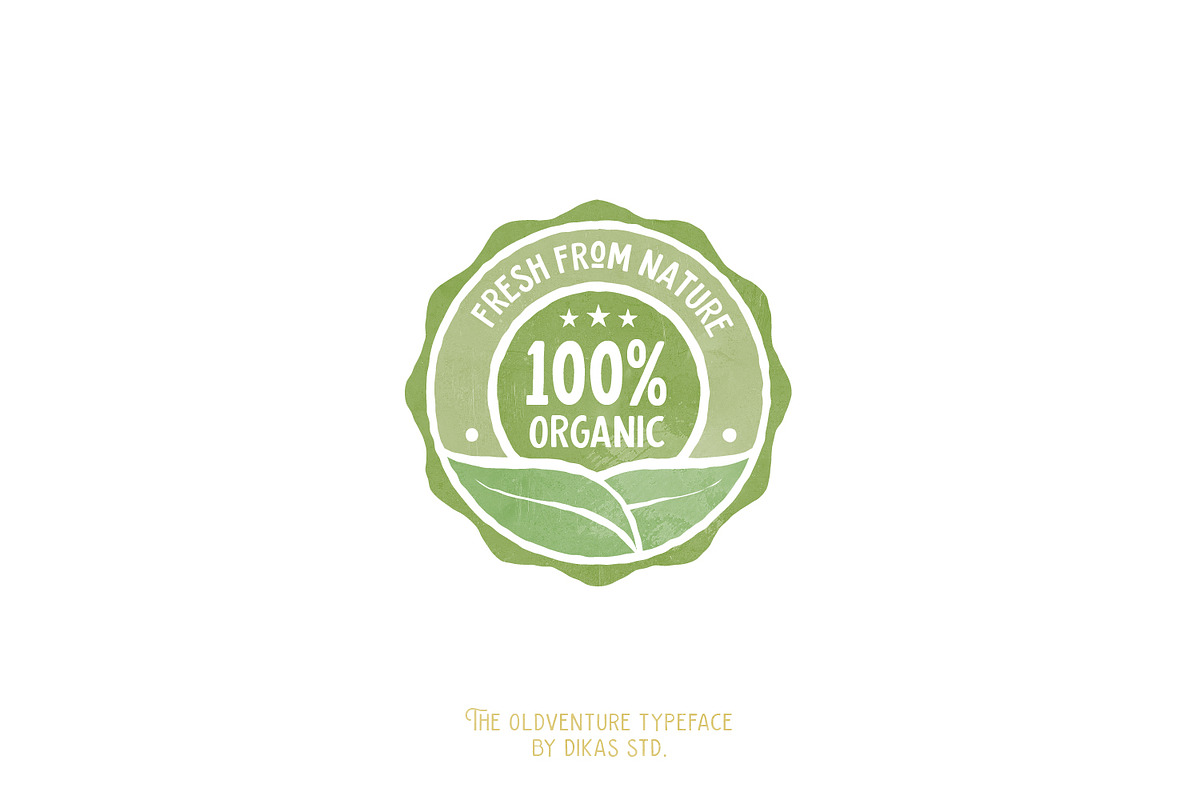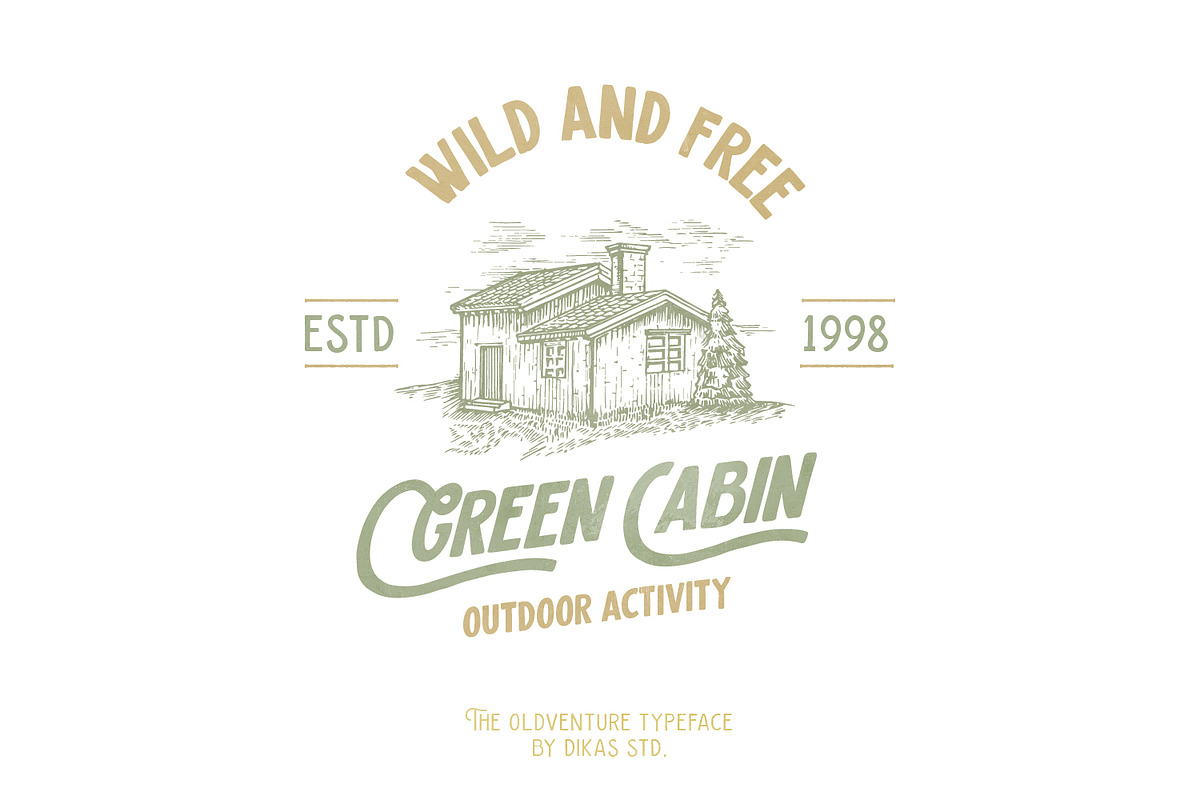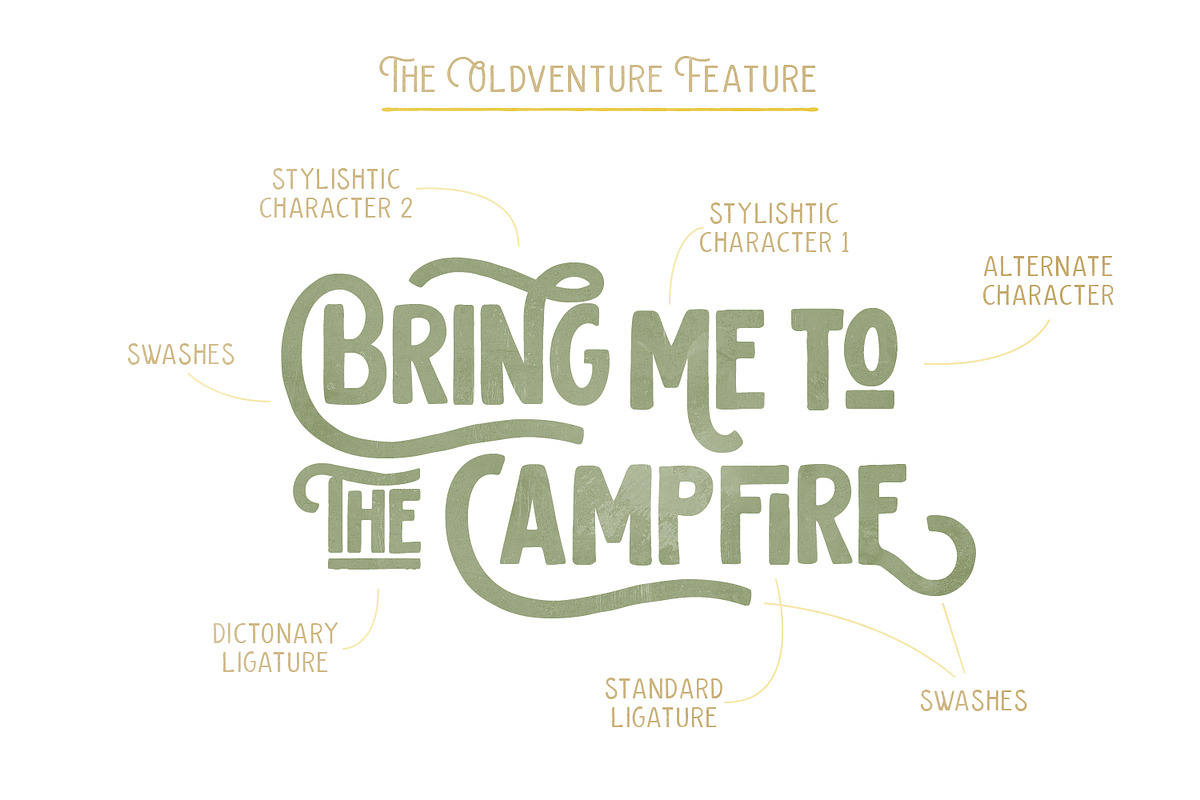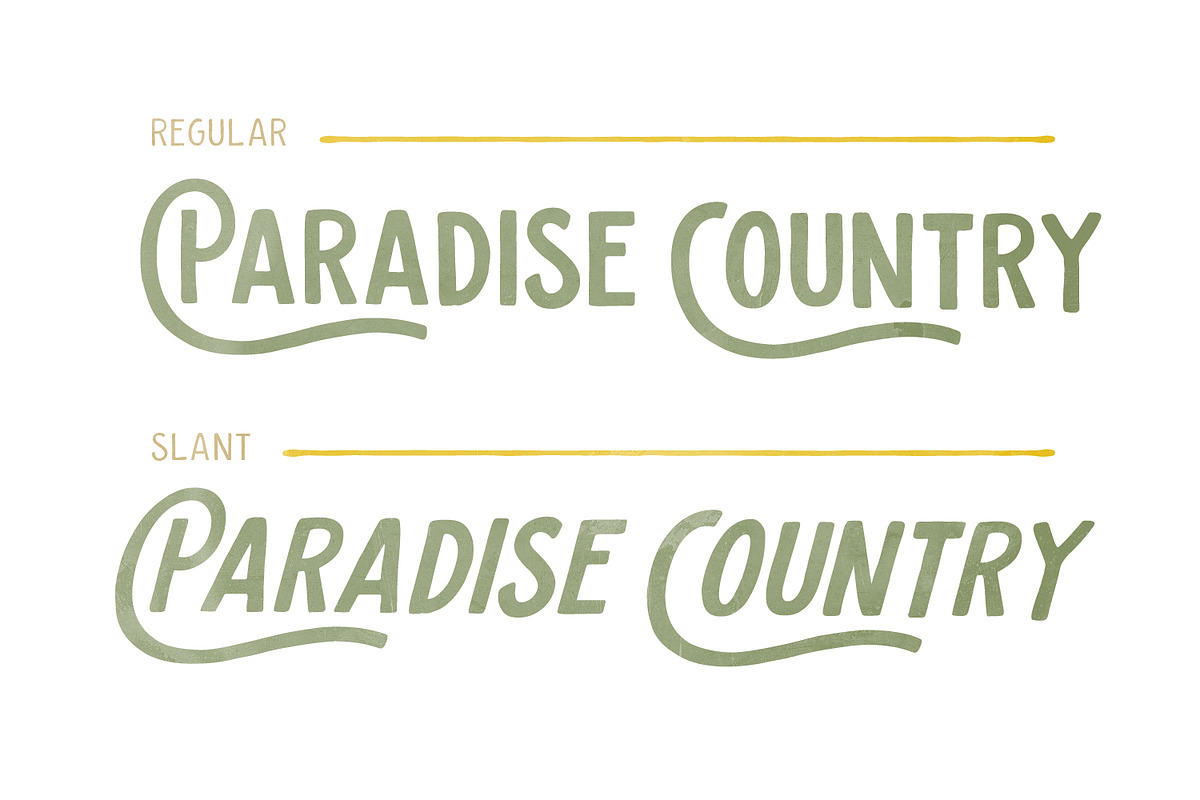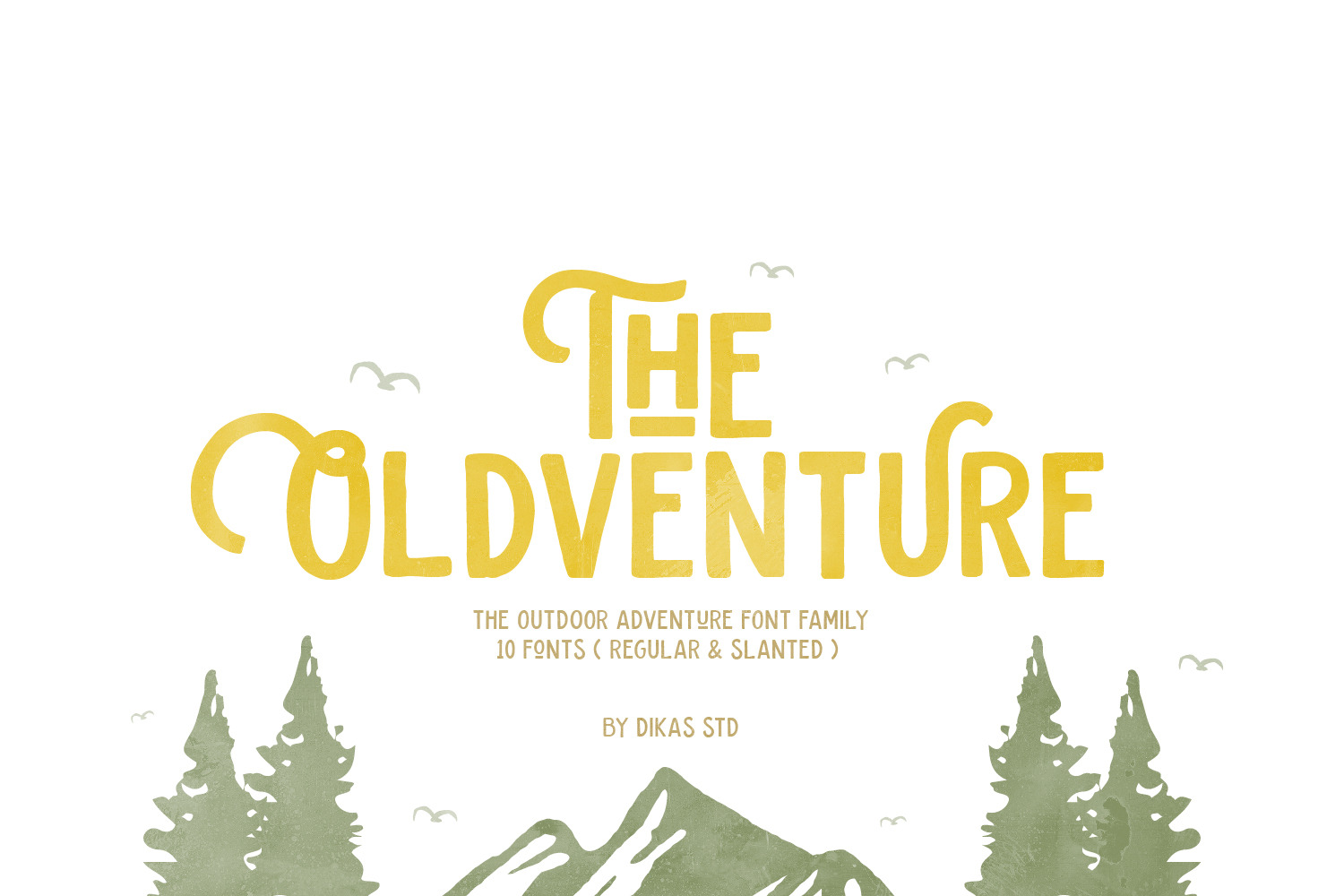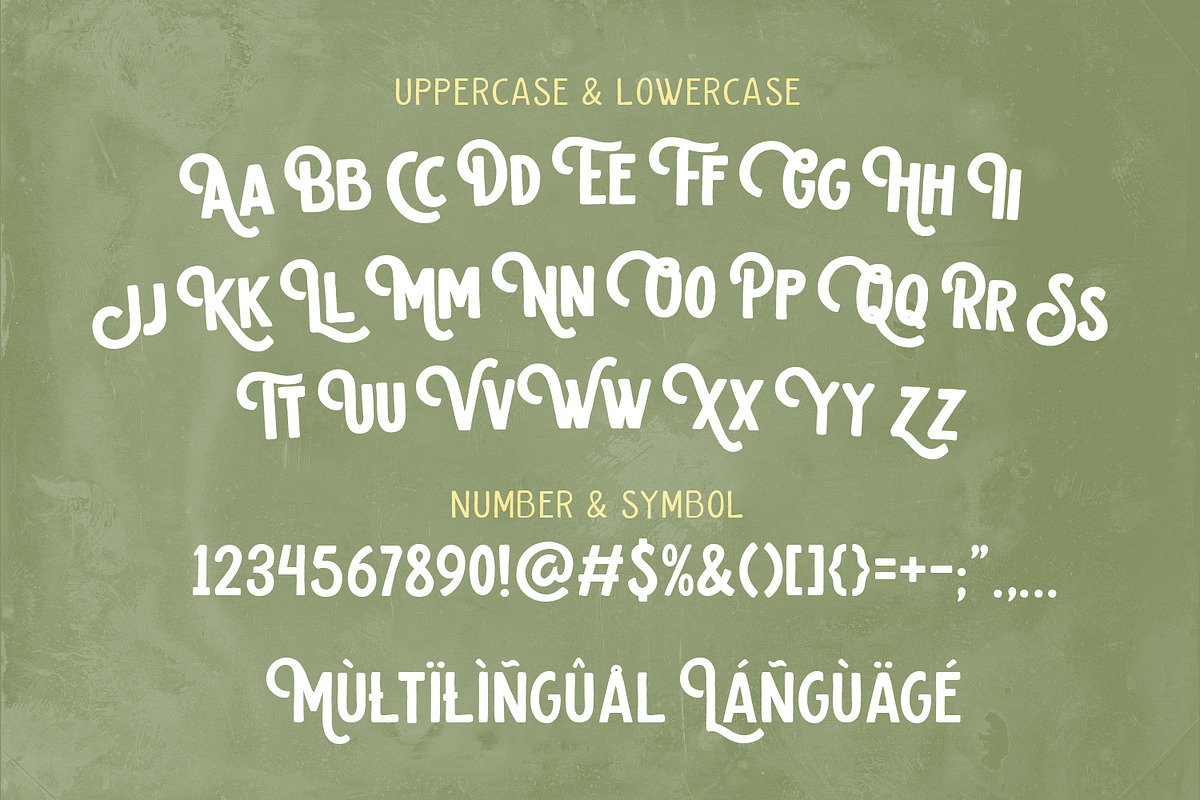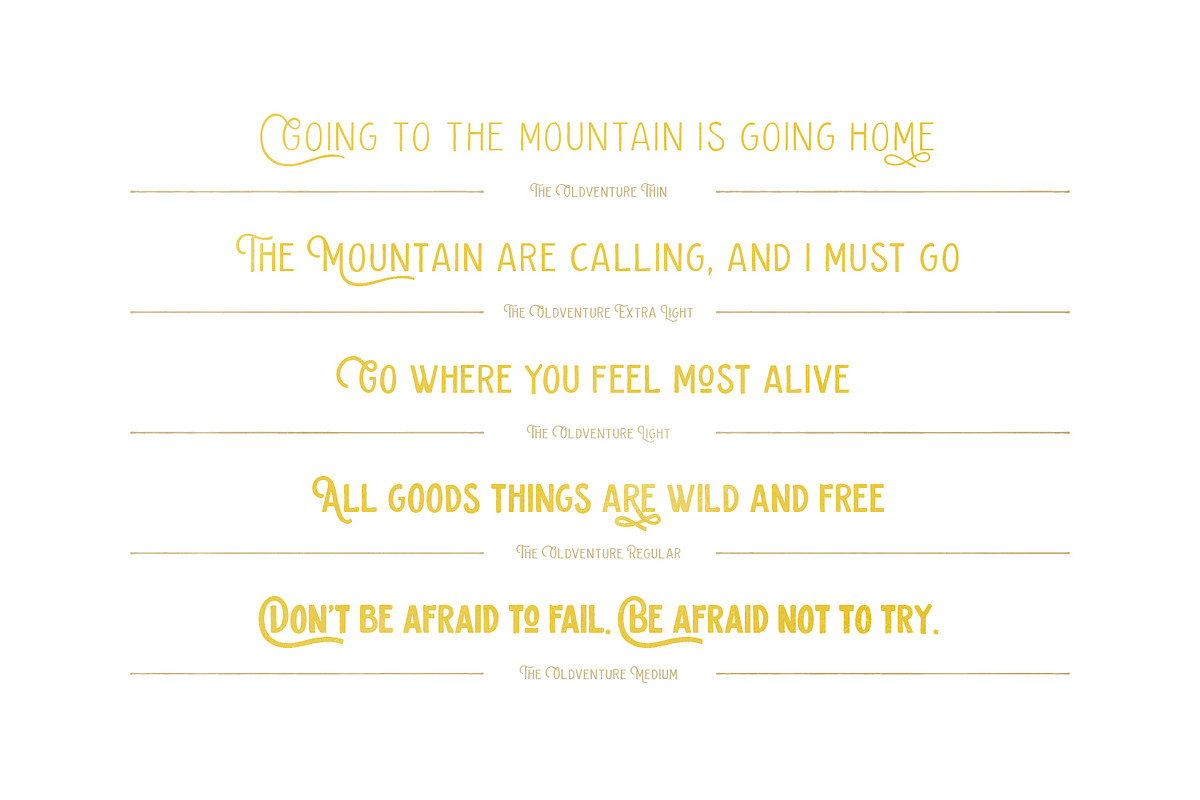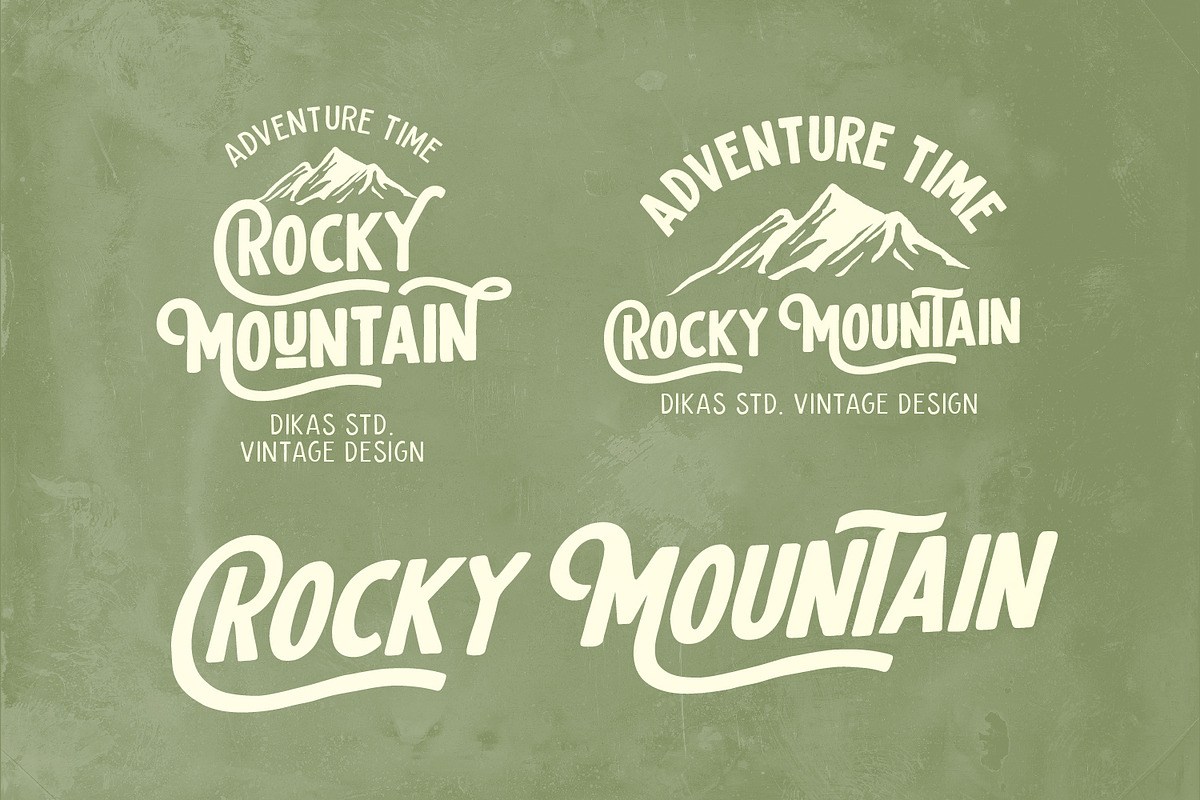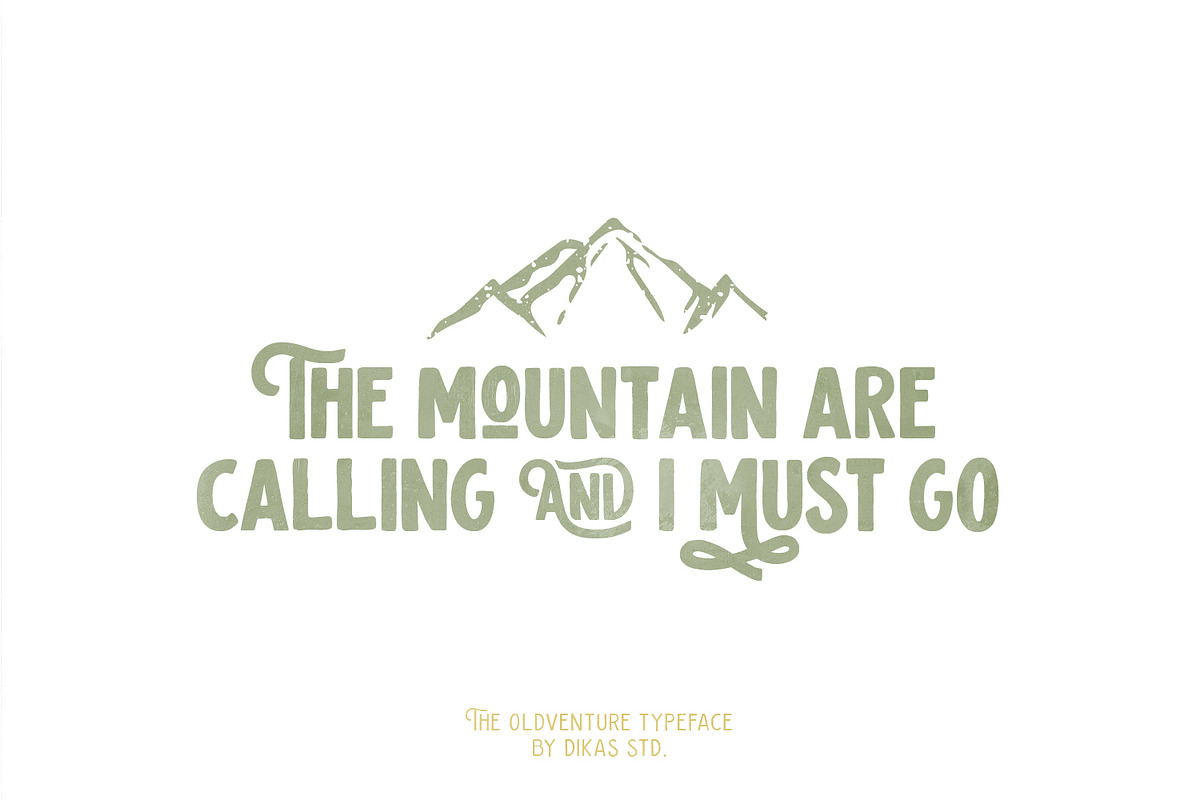
The Oldventure - 10 Fonts
The Oldventure is made for a designer who needs vintage hand-drawn font with a range family. Yes, The Oldventure comes with 10 styles from Extra Light, Light, Thin, Regular, Medium and every style have a slanted version. The Oldventure is made by hand so it has an organic character, every letter has a unique and different stroke. The Oldventure comes with alternate characters, stylistic characters 01 & 02, swashes dan ligature, oldventure is very suitable for adventure and outdoor design themes.
Lowercase
Punctuation and Number
Multilingual Language
Alternate Character
Stylistic Set 01 & 02
Swashes & Ligature